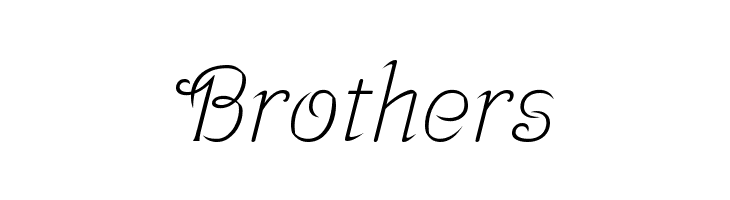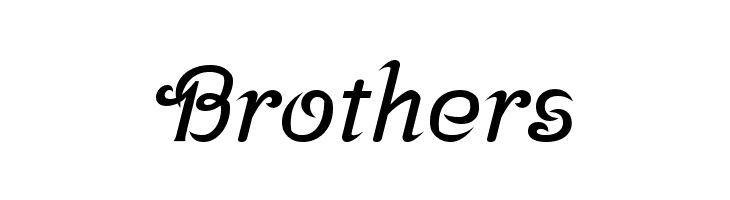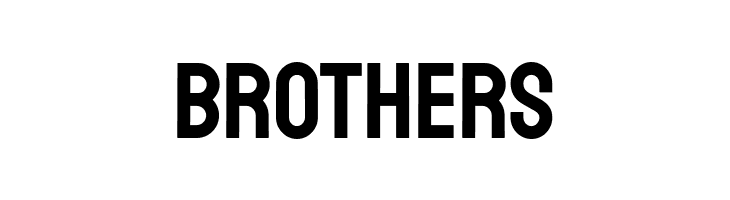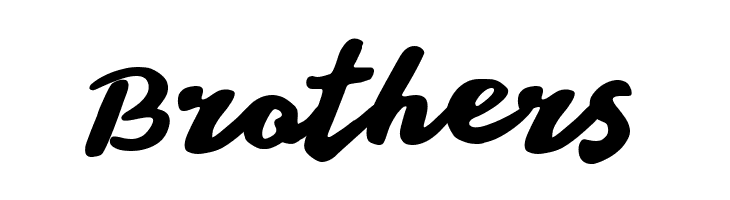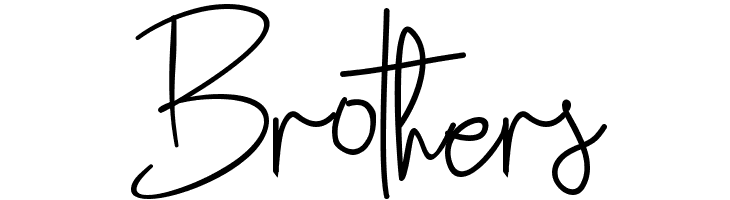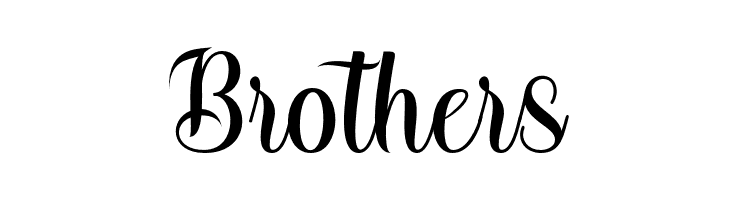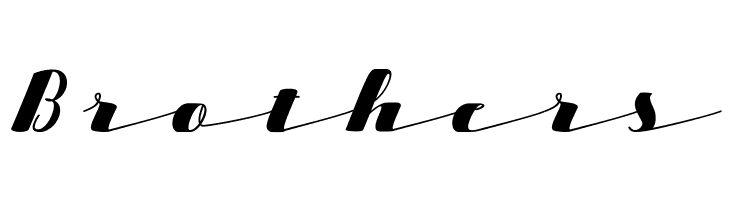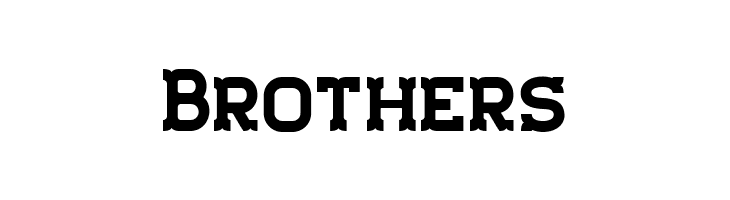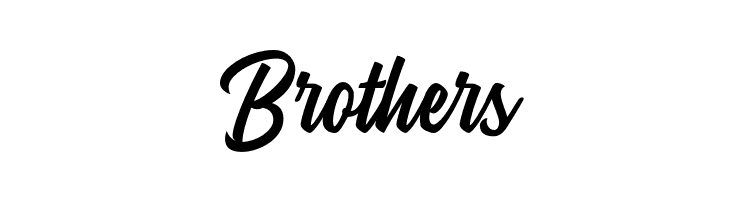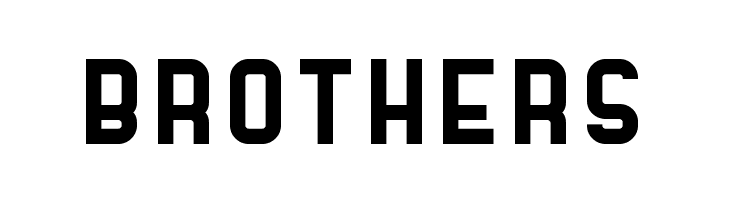
A playful, handwritten font with smooth, rounded edges and a friendly appearance.
A playful, curly font with a spring-like design, perfect for creative projects.
A playful, rounded font with a whimsical and creative style.
A playful, handwritten font with smooth, rounded edges and a casual style.
A pixelated, dot-based font with a digital, modern style.
A geometric, bold font with a modern, square-like design.
Ornate and decorative square frames with intricate patterns.
A geometric, block-like font with a futuristic and digital aesthetic.
A geometric, futuristic font with sharp angles and enclosed characters.
A modern, angular italic font with a bold, futuristic style.
A bold, angular font with a geometric and modern style.
A modern, elegant script font with flowing, cursive letters and decorative flourishes.
A bold, elegant script font with flowing, cursive letterforms and decorative flourishes.
An elegant script font with flowing, decorative characters and high contrast strokes.
A lively, handwritten font with fluid strokes and a modern, informal style.
A bold, geometric sans-serif font with a modern and clean design.
A bold, geometric font with a modern and slightly futuristic aesthetic.
A bold, block-like font with subtle serifs and a vintage-modern aesthetic.
A modern, geometric sans-serif font with a clean and minimalist design.
A modern, geometric sans-serif font with a sleek and narrow design.
A bold, dynamic script font with flowing, cursive letterforms.
A flowing cursive font with elegant loops and swashes, reminiscent of traditional calligraphy.
A playful, bold font with a mix of handwritten and display styles.